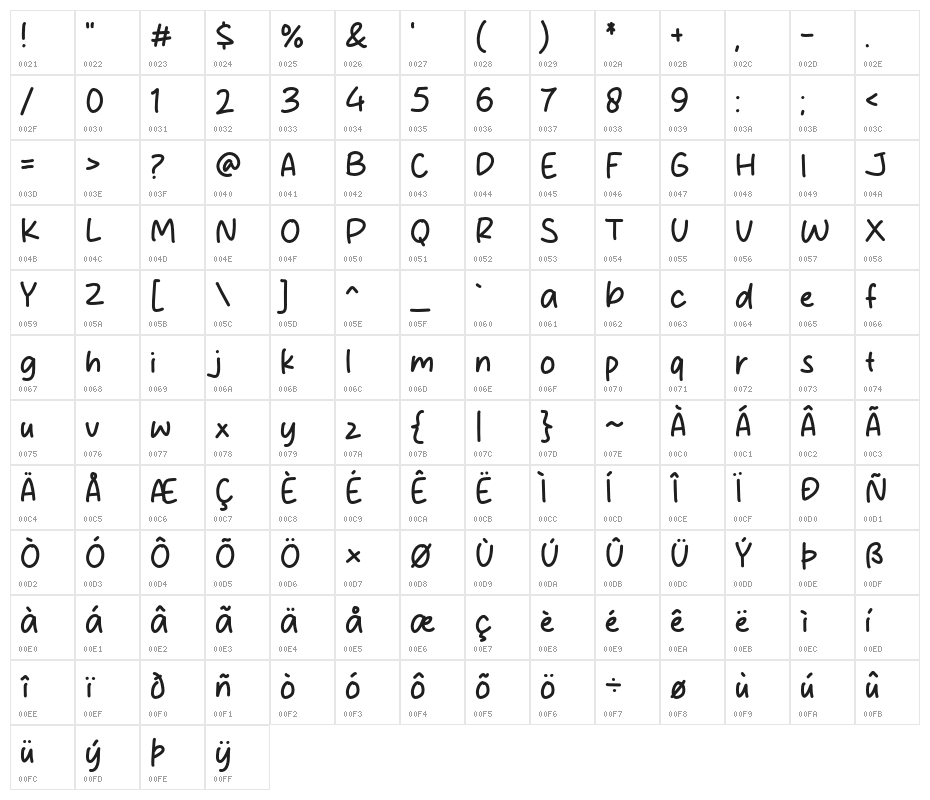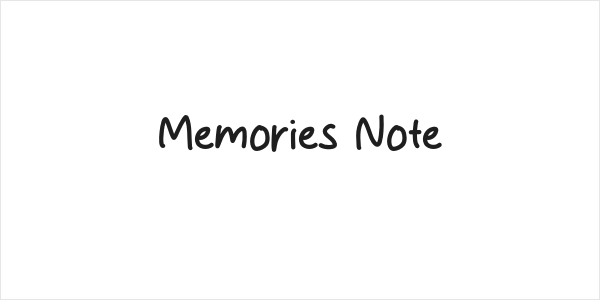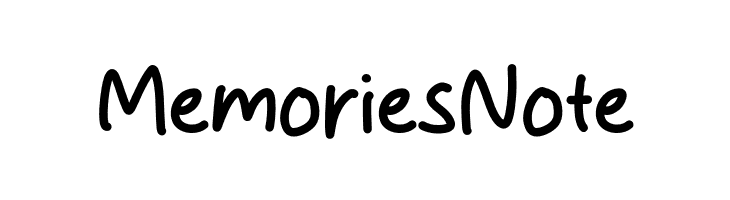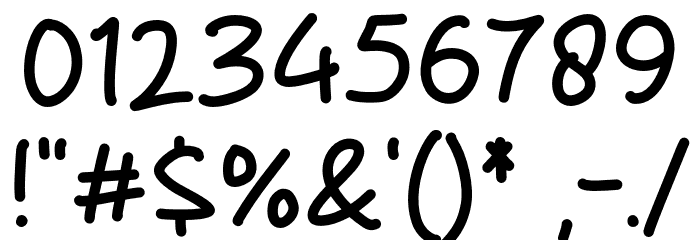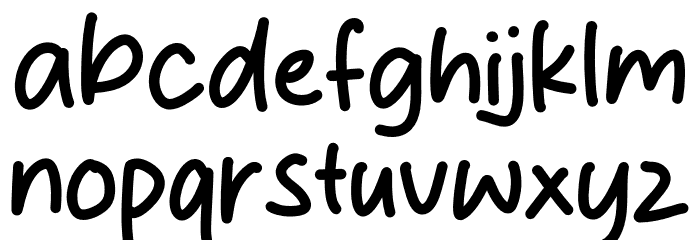
Memories Note Font
Memories Note Description
This font exudes a playful and casual handwritten style, characterized by its rounded and smooth letterforms. The strokes are consistent in thickness, giving it a uniform appearance that is both approachable and friendly. The letters are slightly slanted, adding a dynamic and informal touch. The spacing between characters is balanced, ensuring readability while maintaining its whimsical charm. This font is versatile, suitable for projects that require a personal and human touch, such as greeting cards, invitations, and informal branding.
| Use Case | Headlines, Informal text, Greeting cards |
| Proposed Projects | Ideal for greeting cards, invitations, children's books, and informal branding. |